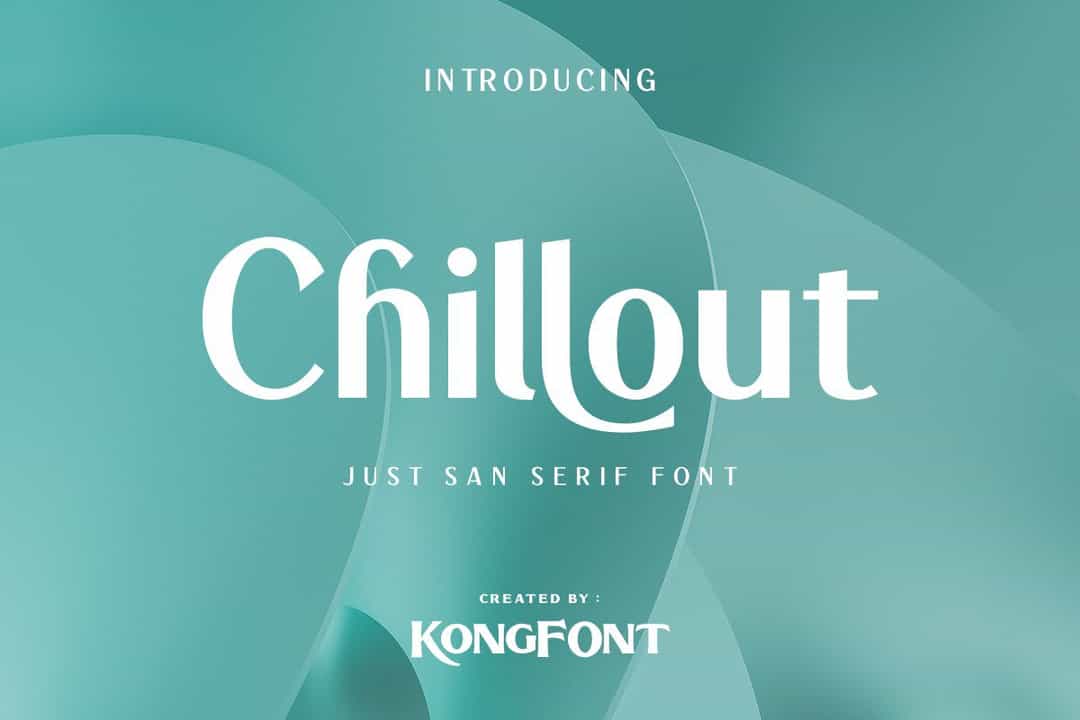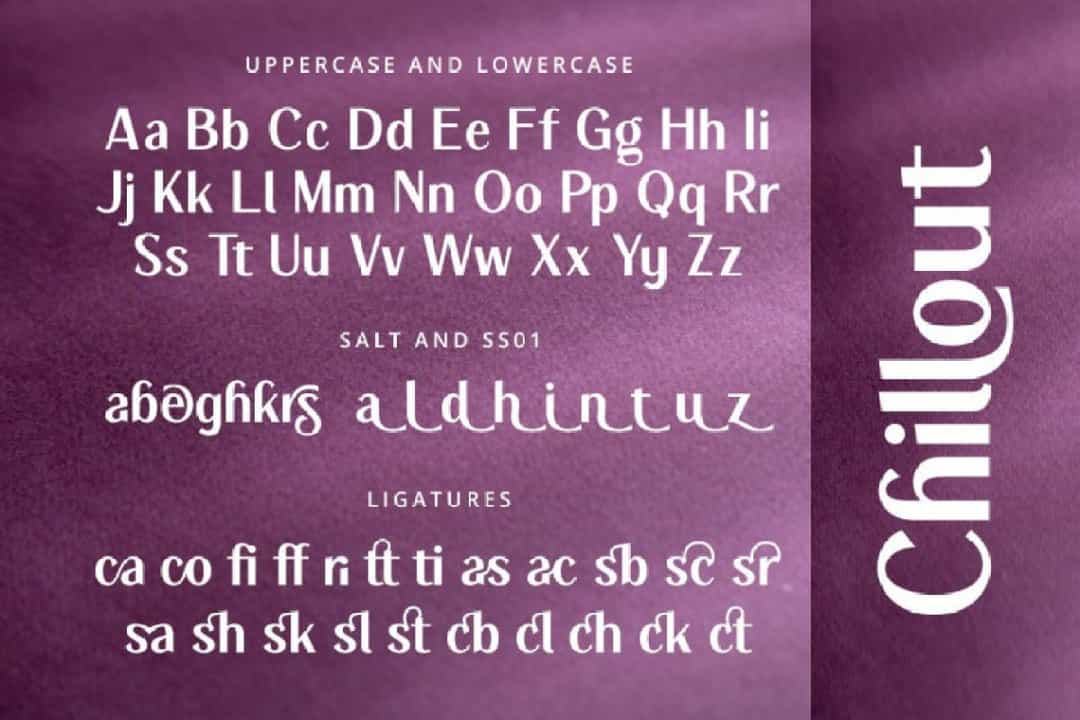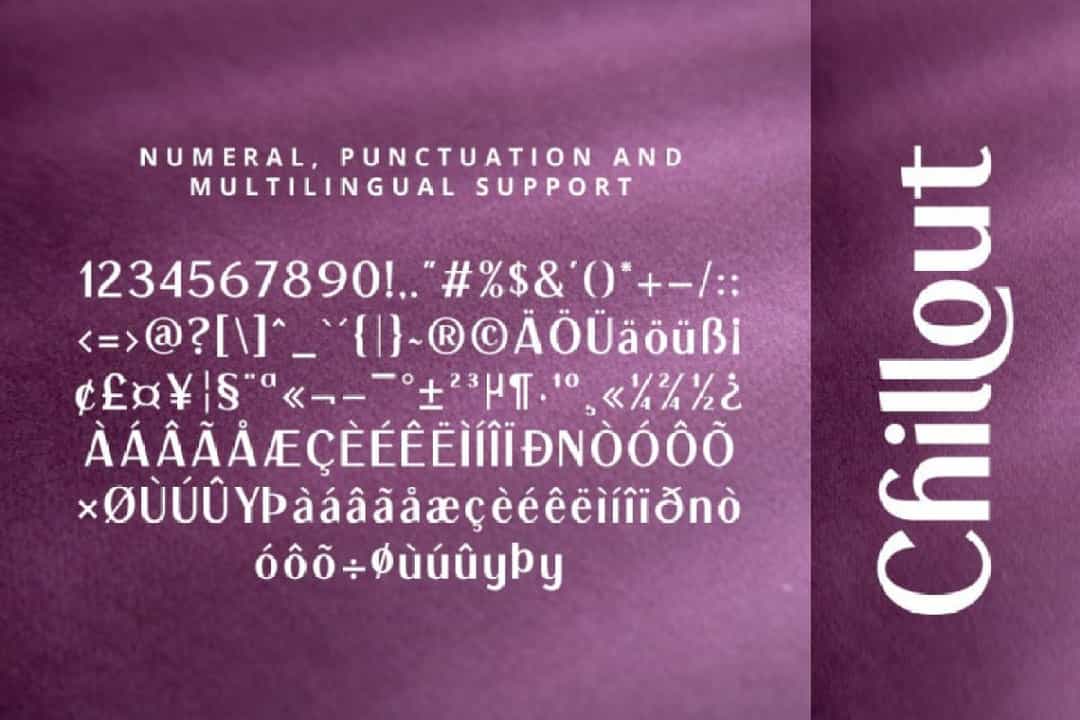
Chillout is an attractive and stylish sans-serif font created and developed by fontkong, ideal for use across various projects such as logos and posters but also branding and identity. Add this font to your best creative ideas to see it stand out! Ideal for logos and posters but versatile enough for other uses including branding and identity work.